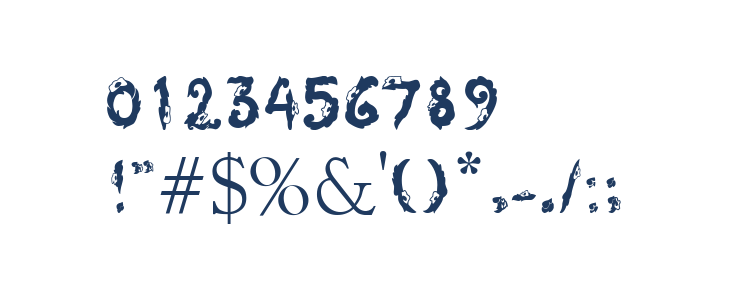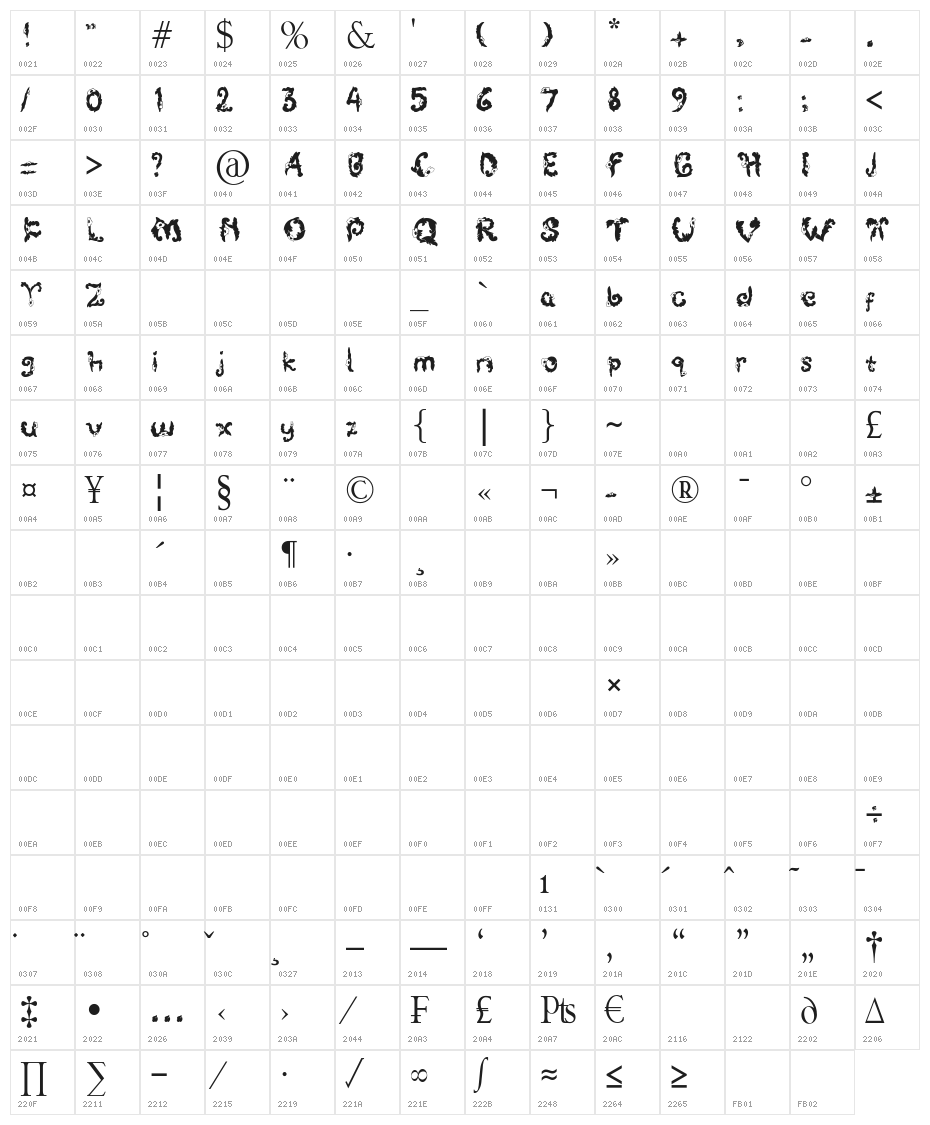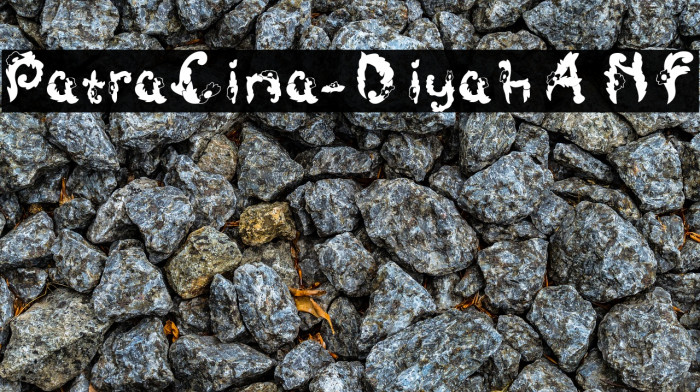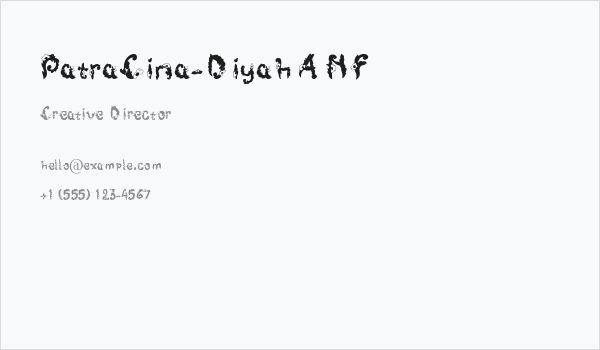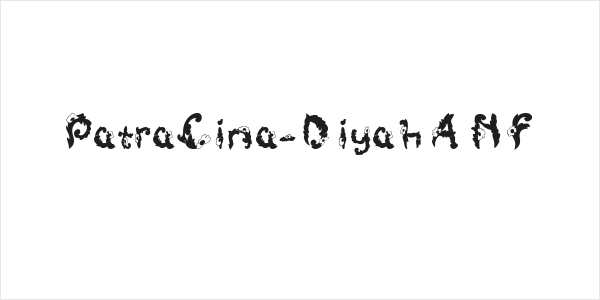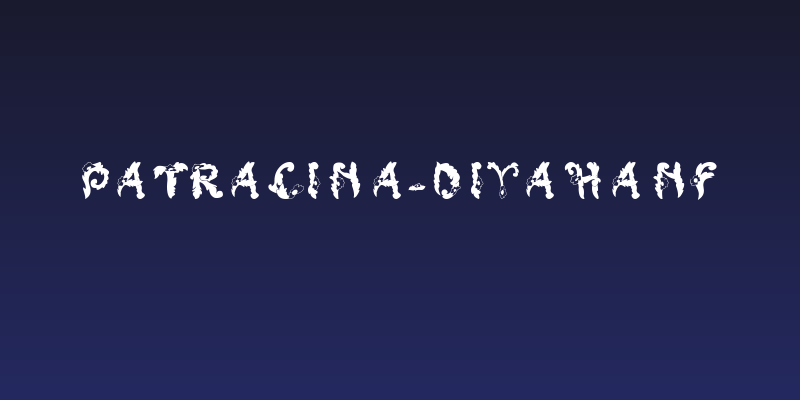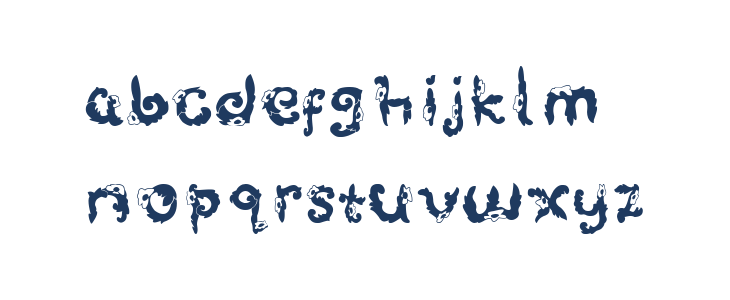
PatraCina-DiyahANF Font
PatraCina-DiyahANF Description
This font features a unique and artistic design with a playful, organic feel. Each character is adorned with intricate, swirling patterns that resemble natural elements like leaves or waves. The letters have a bold presence with varying stroke thickness, creating a dynamic and eye-catching appearance. The overall style is decorative and whimsical, making it ideal for creative projects that require a touch of nature-inspired elegance. The font maintains legibility despite its complex design, with consistent character shapes and a cohesive visual theme.
| Proposed Projects | Ideal for nature-themed branding, artistic posters, invitations, and creative packaging designs. |